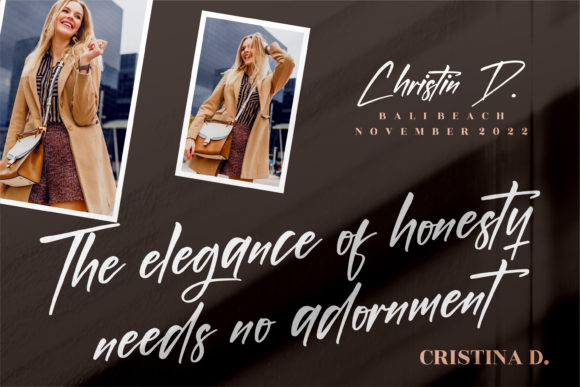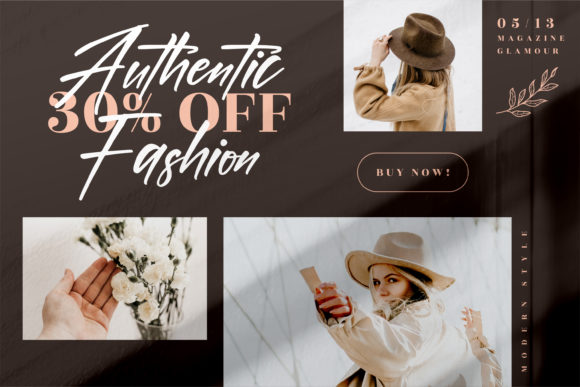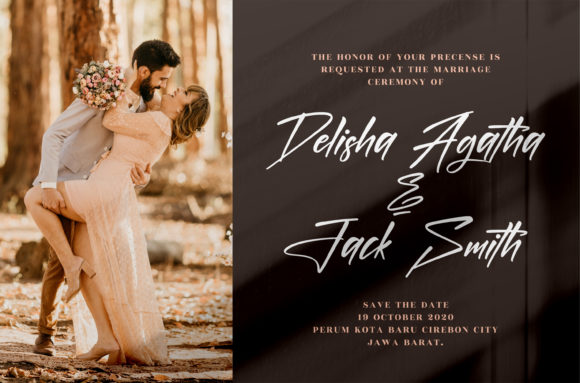
Introduction to Rolingone Font
Remember that moment when you finally find the perfect design resource for your creative project? It’s like a breath of fresh air, a spark that ignites your imagination, and suddenly, your ideas start flowing like never before. For designers, it’s a feeling that’s hard to replicate, but one thing is certain – the right font can make all the difference.
Enter the Rolingone Font, a lovely and timeless handwritten font that’s sure to captivate your audience. With its unique and beautiful touch, every letter comes alive, making it the perfect choice for creating eye-catching logos, branding, and quotes. Whether you’re working on a high-quality design project or need a free download for a quick fix, the Rolingone Font is an excellent addition to your design arsenal.
With its transparent background and high-quality design, the Rolingone Font is a valuable asset for designers who want to elevate their creative work. So, get ready to unleash your creativity and make your design shine with the Rolingone Font.
Key Features of Rolingone Font
- High-quality design resource perfect for creative projects, offering a unique and stylish look.
- Features a transparent background, allowing for seamless integration with any design element.
- Offers a wide range of characters, including uppercase and lowercase letters, numbers, and punctuation marks.
- Designed with a resolution of 300 DPI, ensuring crisp and clear text at any size.
- Perfect for use in graphic design, digital art, and other creative projects where a distinctive font is required.
Honest Review: Rolingone Font
As a designer, I’m always on the lookout for high-quality design resources to elevate my creative projects. Recently, I had the chance to try out the Rolingone Font, and I’m excited to share my honest review with you.
- Smooth and sleek design: The Rolingone Font has a clean and modern look that’s perfect for digital designs.
- High-resolution graphics: The font is available in high-resolution formats, making it ideal for printing or using on high-quality displays.
- Limited character set: The Rolingone Font only includes a limited set of characters, which may not be suitable for complex text-based projects.
- No transparent background option: While the font itself looks great, it would be even more versatile if it included a transparent background option.
Overall, I’m impressed with the Rolingone Font’s clean design and high-quality graphics. While it may have some limitations, it’s a great resource for designers working on creative projects that require a modern and sleek look. I’d definitely recommend it for digital designs and social media graphics.
Tips for Getting the Most Out of Rolingone Font
Use a transparent background to make your text stand out, especially when designing for digital use. Experiment with different font sizes and styles to add visual interest to your creative project. Consider pairing the Rolingone Font with other high-quality design elements to enhance your overall design.
The Rolingone Font is ideal for creative projects that require a unique and eye-catching font. Common use cases include logo design, social media graphics, and advertising materials. Its high-quality design makes it perfect for presentations, reports, and other professional documents.
Alternatives to Rolingone Font
The Great Vibes Font is a high-quality, handwritten font ideal for creative projects requiring a touch of elegance and sophistication. It’s perfect for designers looking to add a personal touch to their designs. Great Vibes Font is a free download with a transparent background, making it easy to use in various design resources.
When to use: Great Vibes Font is suitable for wedding invitations, quotes, and other creative projects where a handwritten touch is desired. It’s a great alternative to Rolingone Font for designers who want a more elegant and sophisticated look.
Yes, the Rolingone Font is suitable for both print and digital designs. Its high-quality design and transparent background make it perfect for various applications, from business cards and brochures to website headers and social media graphics.